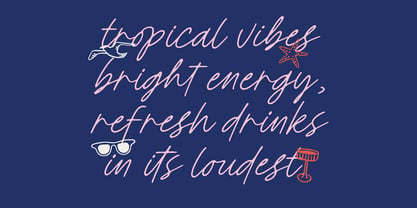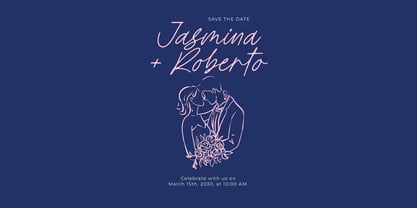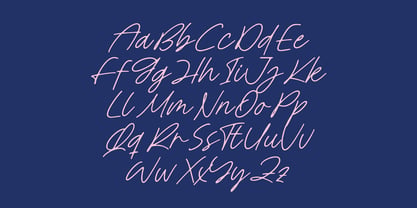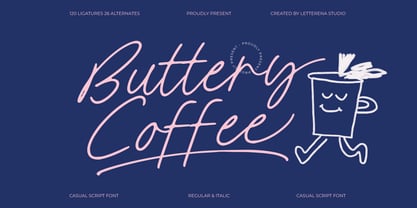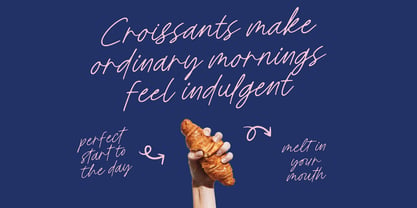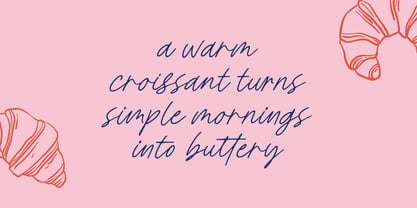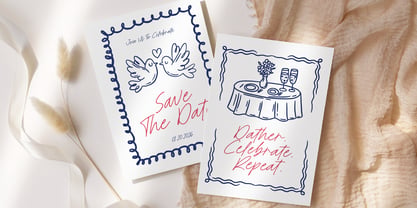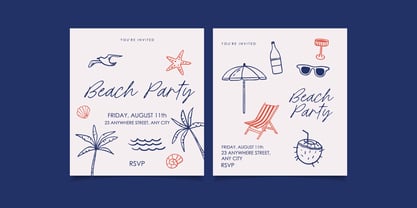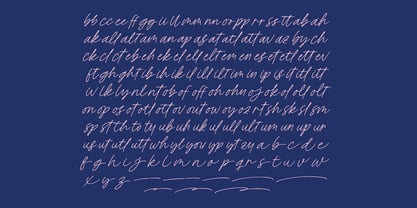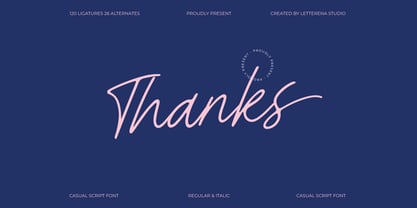
Buttery
The Buttery Font Family was designed by Heru Utama Putra and published by Letterena Studios. Buttery contains 2 styles and family package options. More about this family
Buttery Coffee is a smooth casual script font that blends effortless handwriting with a warm, playful personality, perfect for branding, café menus, packaging, social media posts, lifestyle products, and creative marketing projects. Designed with 120 ligatures and 26 alternates, this font delivers natural flow and authentic handwritten charm, offering flexibility for expressive logo marks, modern quotes, blog graphics, merchandise, and cozy design themes. Its soft strokes and friendly rhythm make Buttery Coffee an ideal choice for designers seeking a relaxed yet stylish script that elevates any visual identity with a welcoming, handcrafted feel.